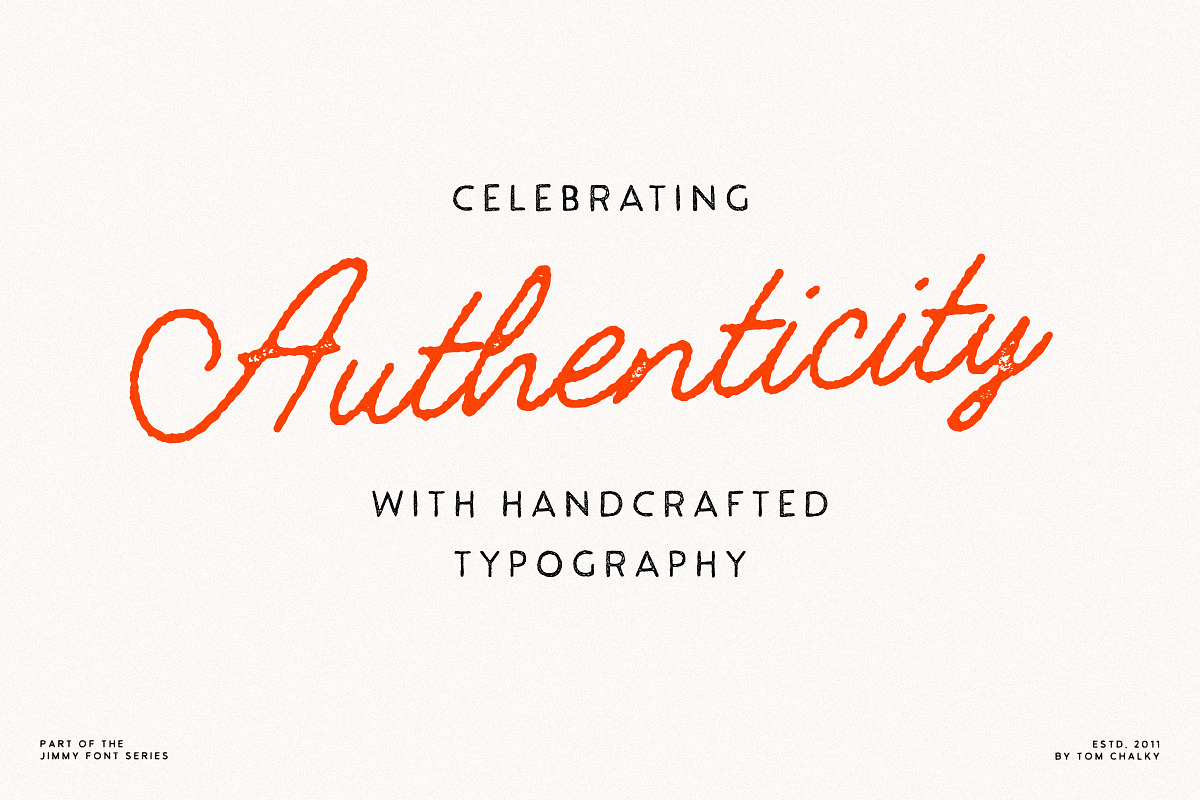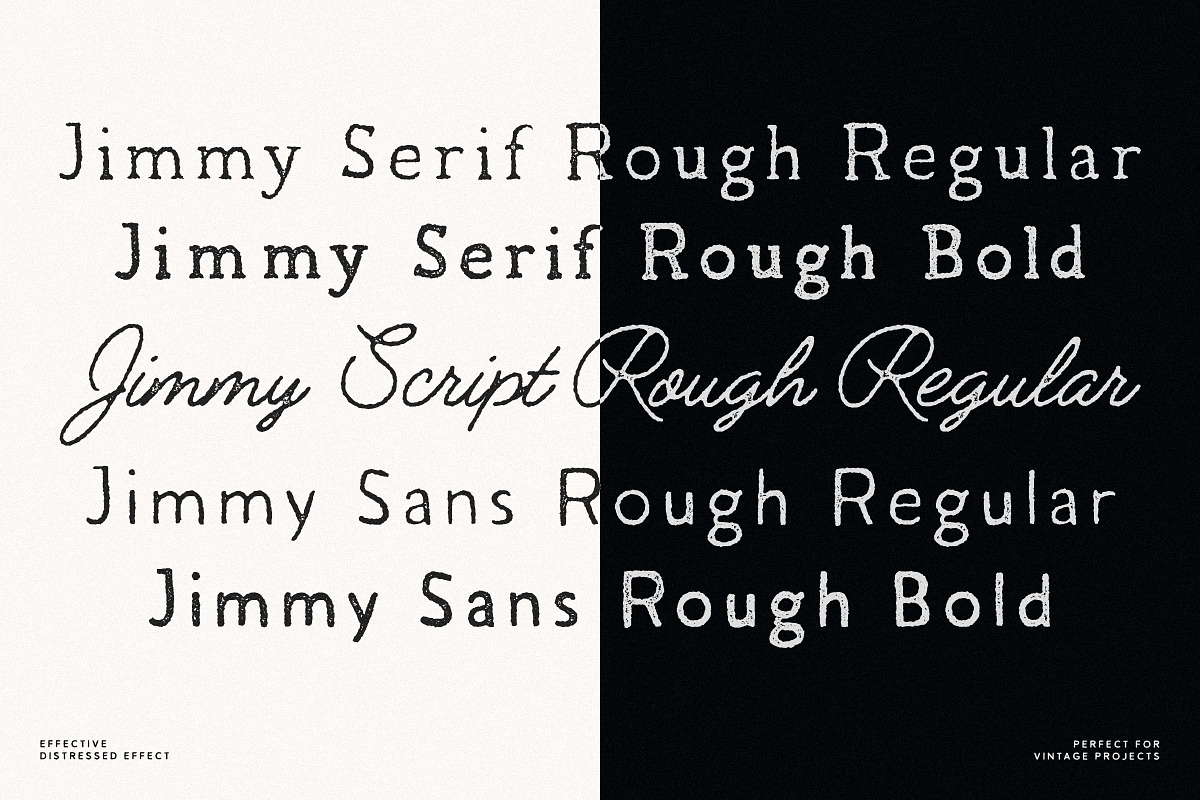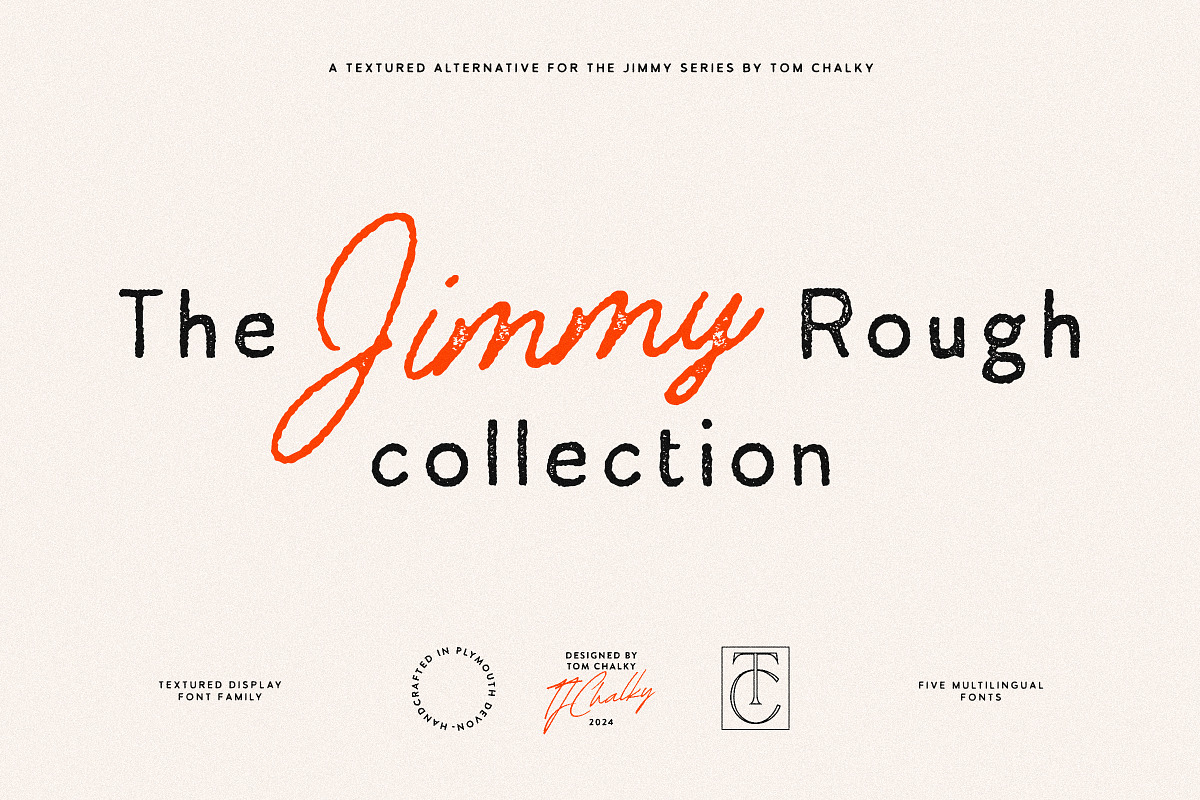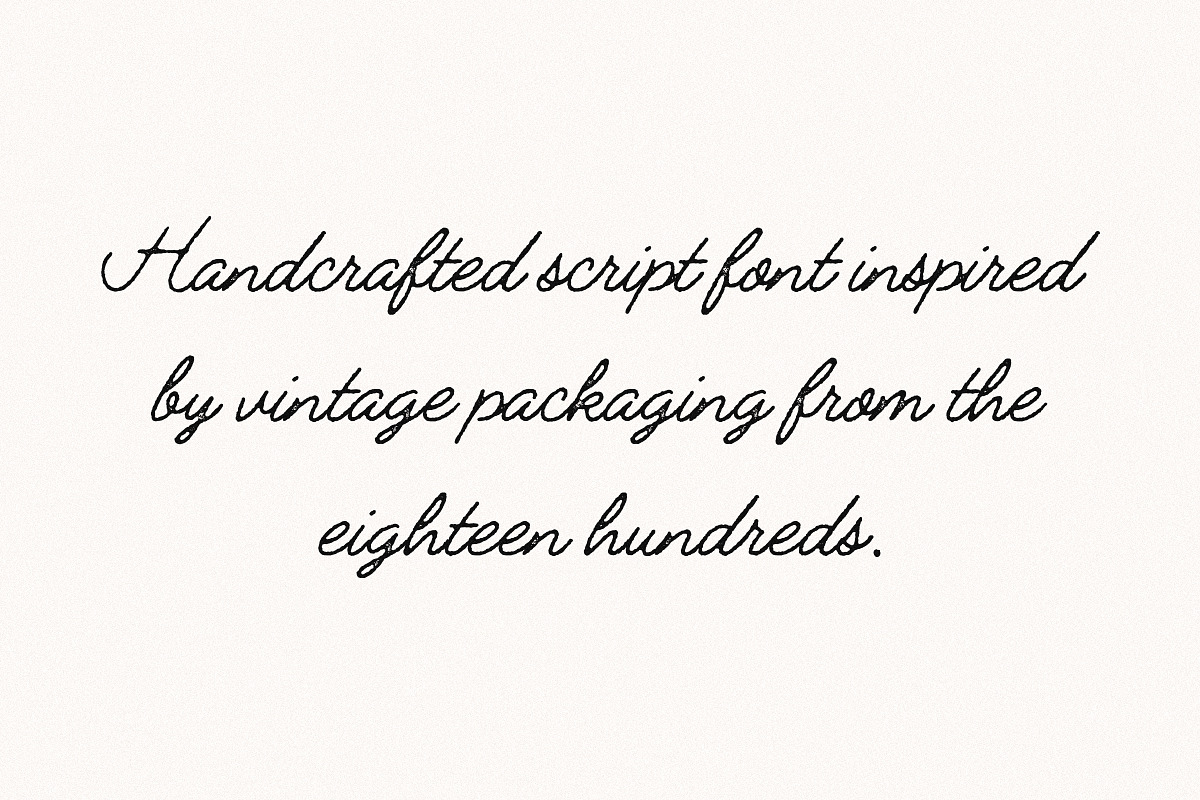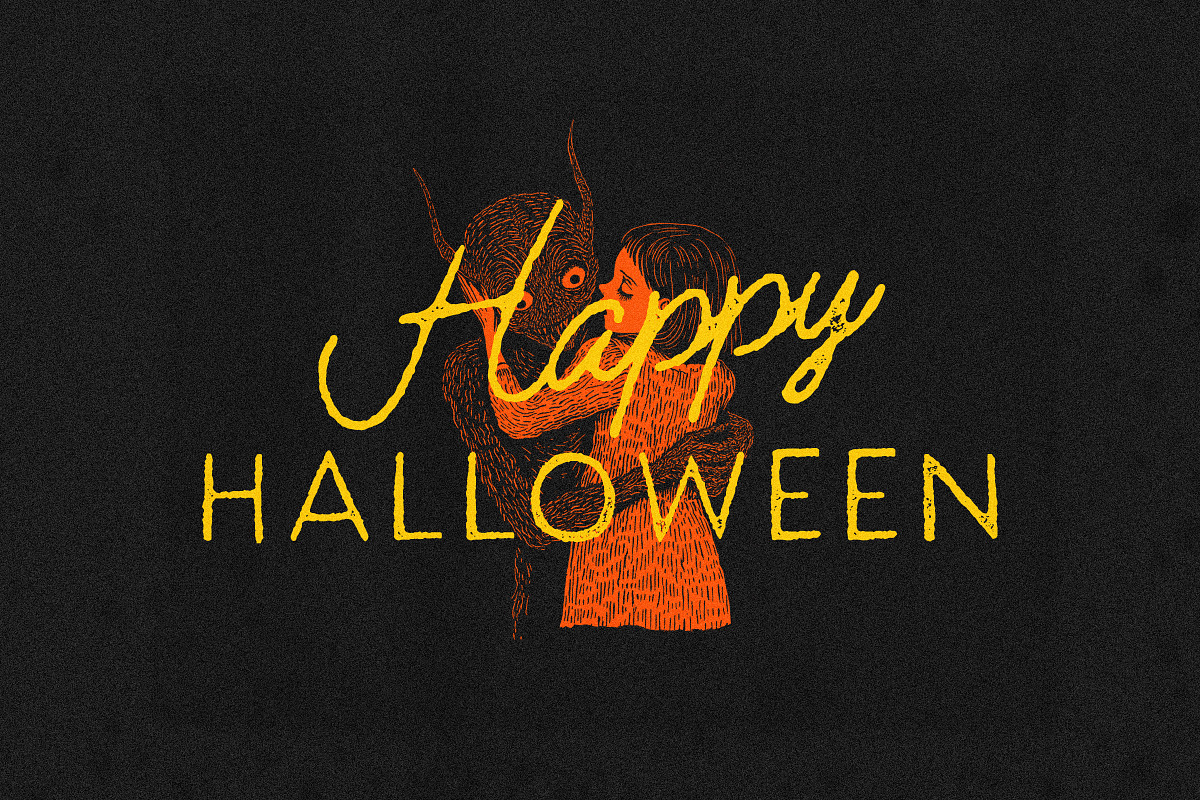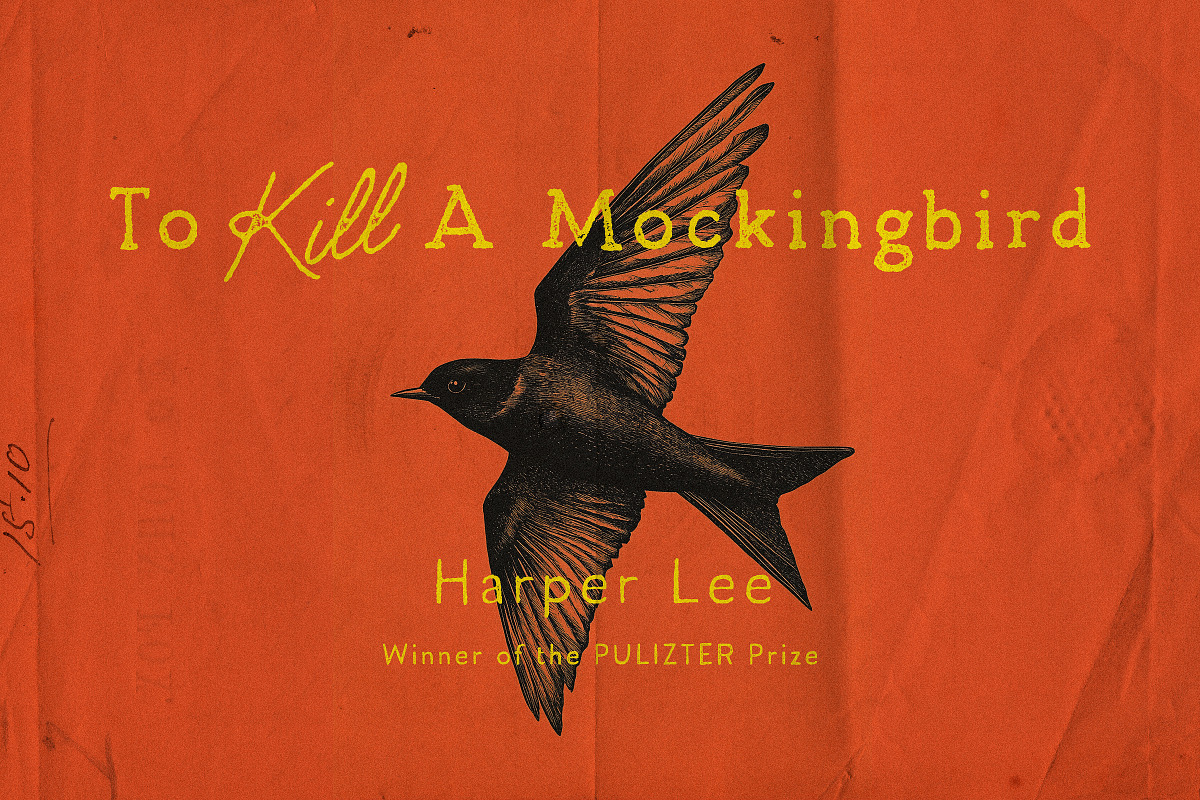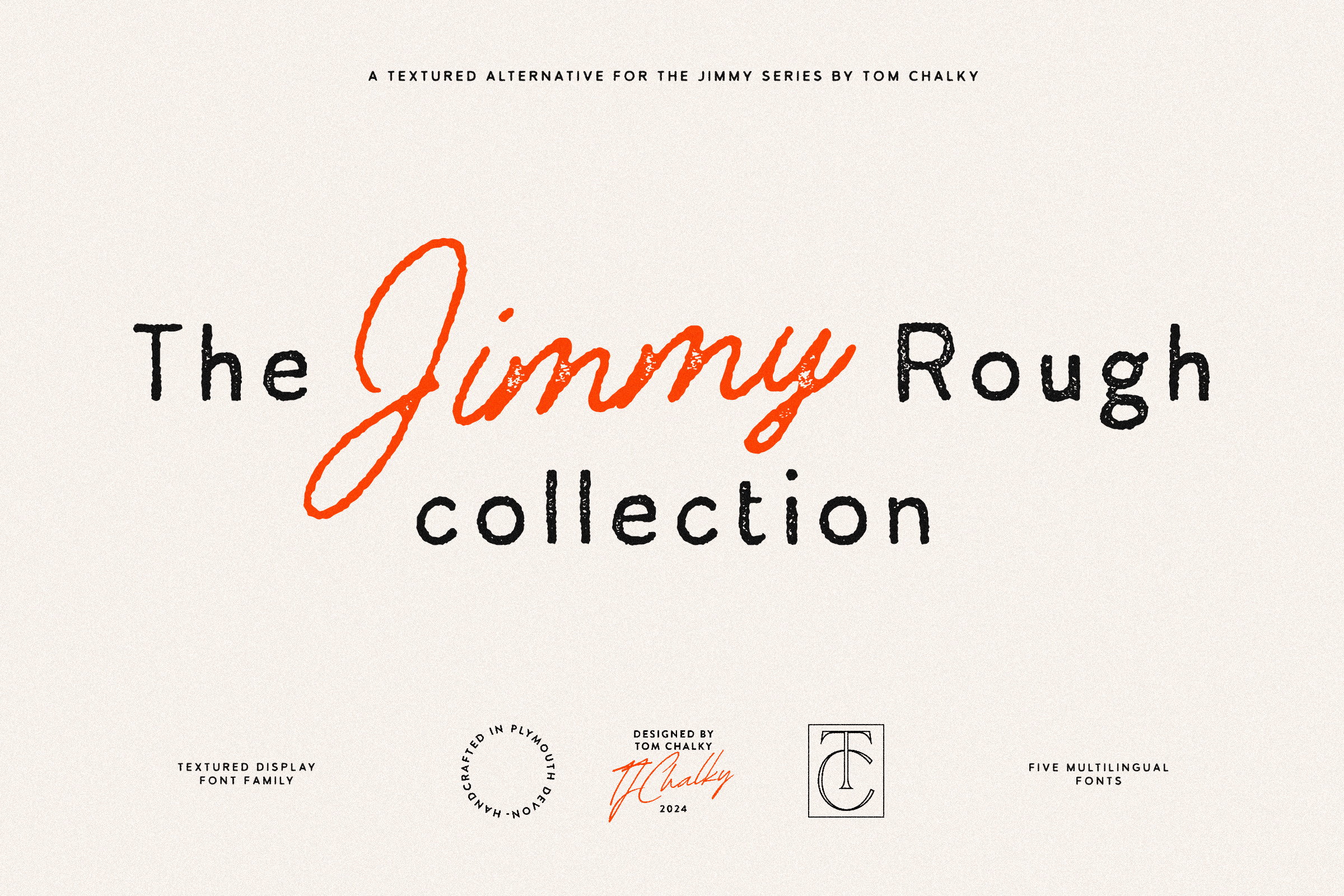
Jimmy Rough Font Collection
Introducing The Jimmy Rough Collection!
A textured, vintage-inspired font family that brings with it a touch of authentic charm. Inside, you'll find a sans-serif, serif, and monoline script, each with a rough and distressed finish.
This timeless trio works great together and on their own in combination with other typefaces. Perfect for retro branding projects, packaging, apparel, logo design etc.
- Jimmy Sans Rough Regular
- Jimmy Sans Rough Bold
- Jimmy Serif Rough Regular
- Jimmy Serif Rough Bold
- Jimmy Script Rough